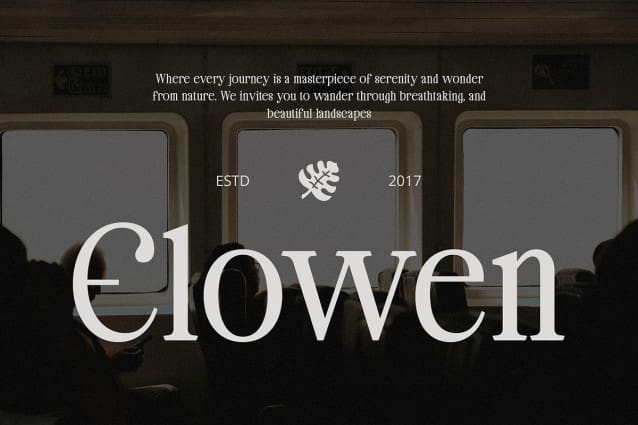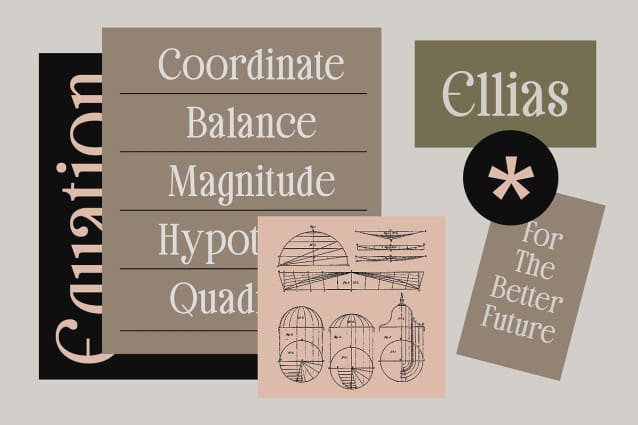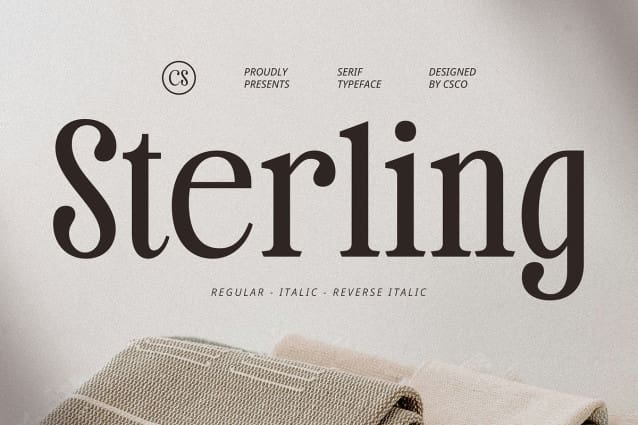
CS Sterling Font
CS Sterling is a modern classic serif font that perfectly balances tradition and contemporary aesthetics. With graceful proportions, delicate contrast, and finely crafted serifs, this typeface embodies elegance and sophistication. Its refined letterforms offer a seamless blend of classic beauty and modern clarity, making it ideal for high-end and artistic designs.
Perfect for Prestige and Luxury Designs Designed with exclusivity in mind, CS Sterling enhances luxury branding, editorials, wedding invitations, and premium publications. Its poised structure and clean details add a touch of timeless charm while ensuring a strong and authoritative presence. The subtle contrast in strokes brings out a sense of refinement and class, making it a versatile choice for brands that demand grace and professionalism.
A Statement of Timeless Elegance CS Sterling is more than just a typeface—it’s a statement of style and prestige. Whether you’re creating elegant packaging, sophisticated logos, or high-end marketing materials, this font elevates the visual experience with its timeless charm. A perfect fusion of classic inspiration and modern precision, CS Sterling offers a distinctive, upscale look for any design that seeks to exude elegance and refinement.